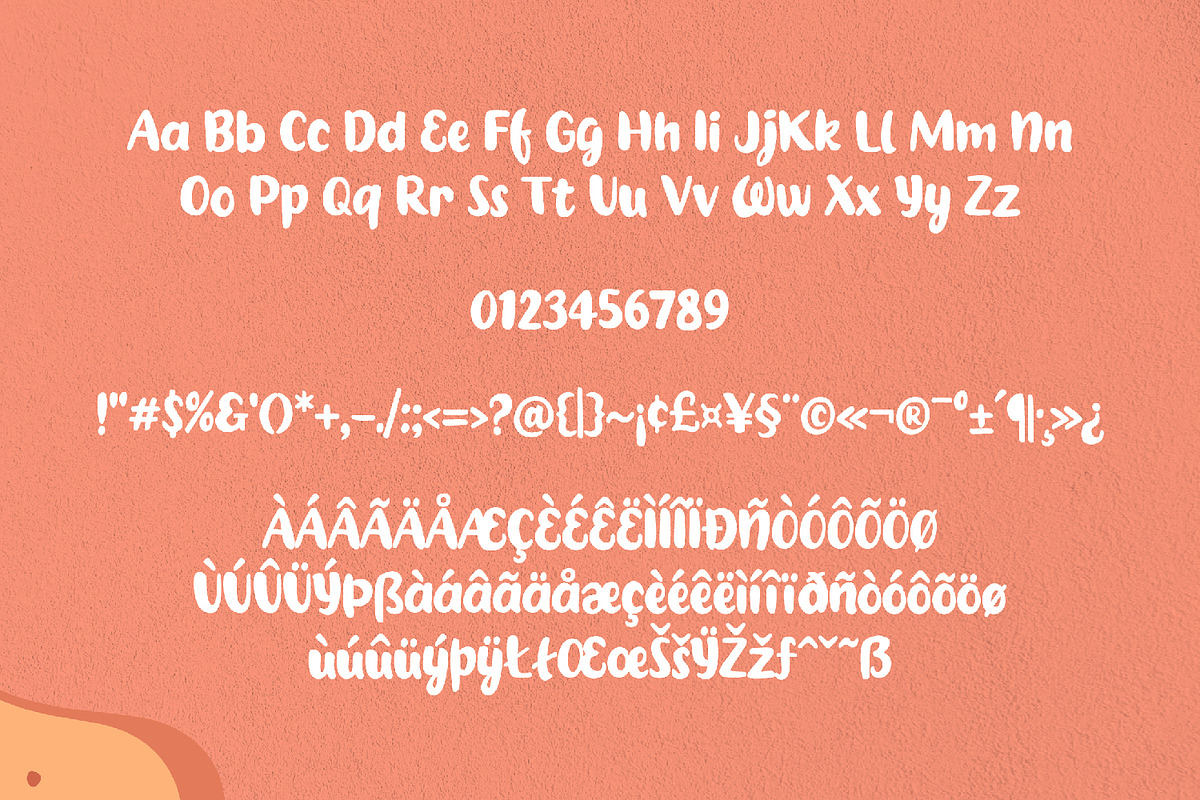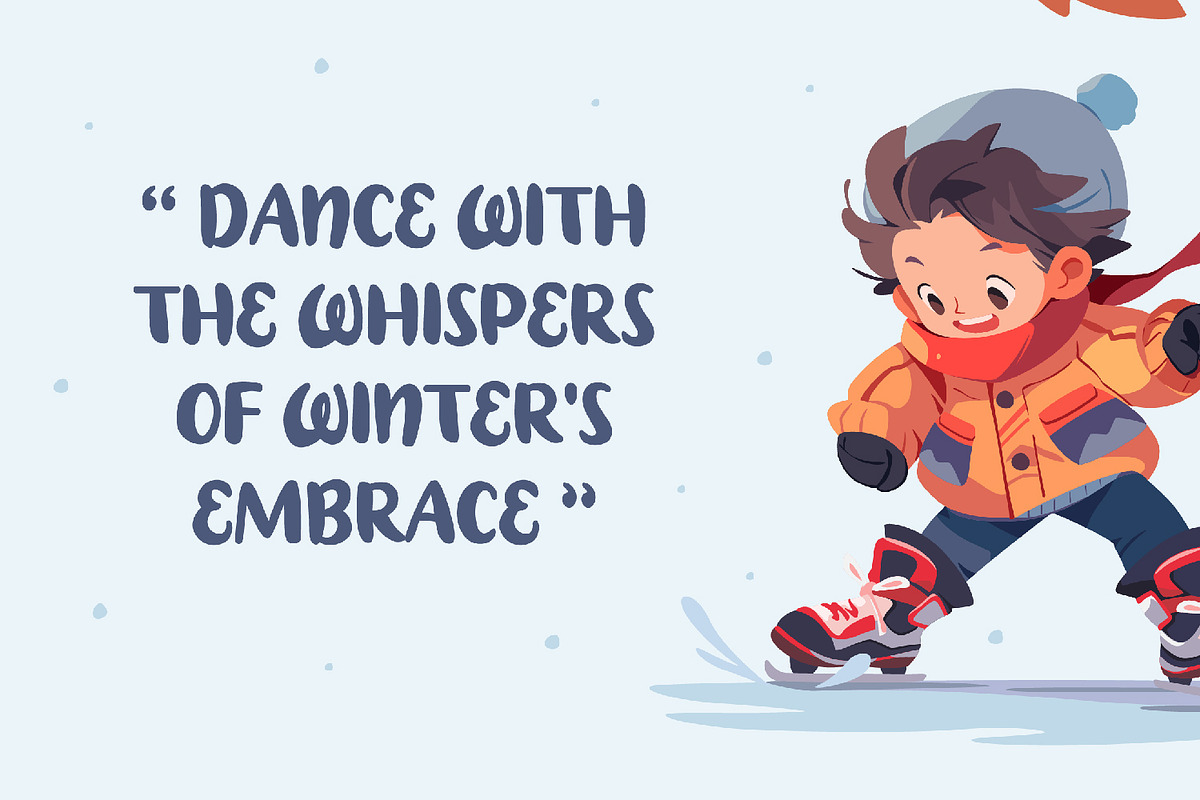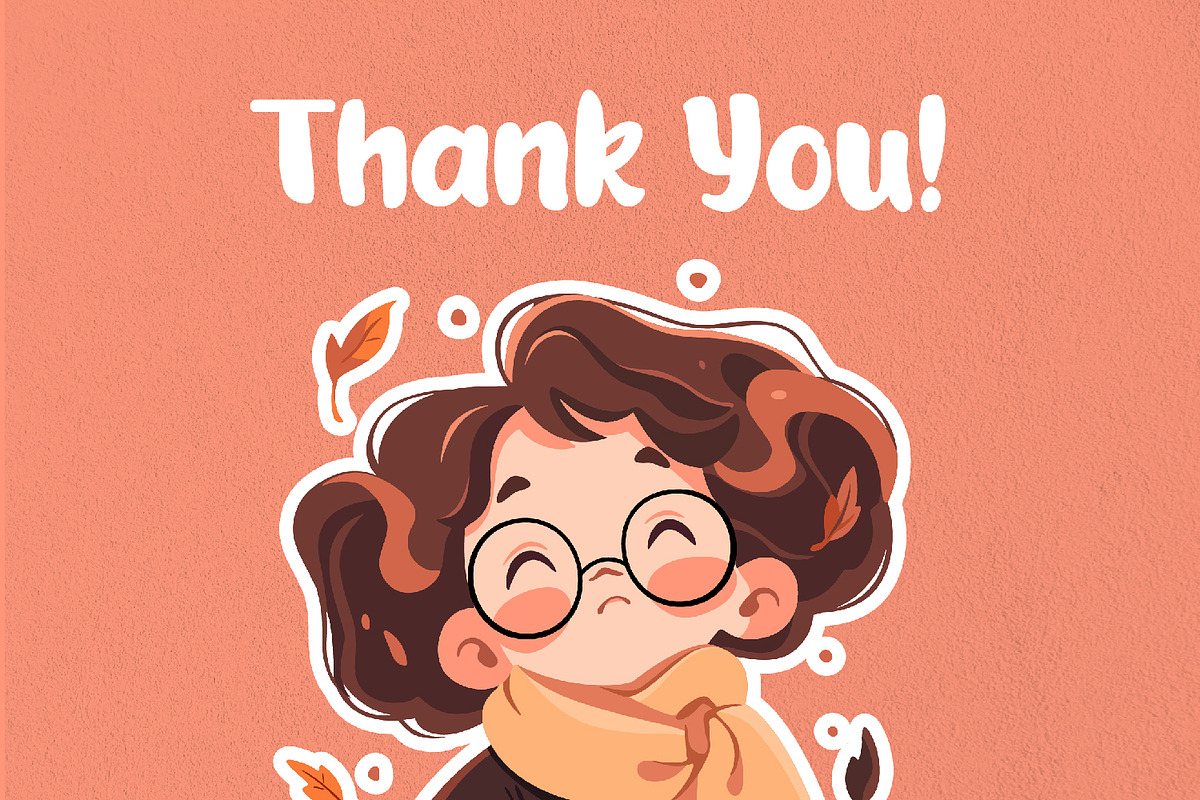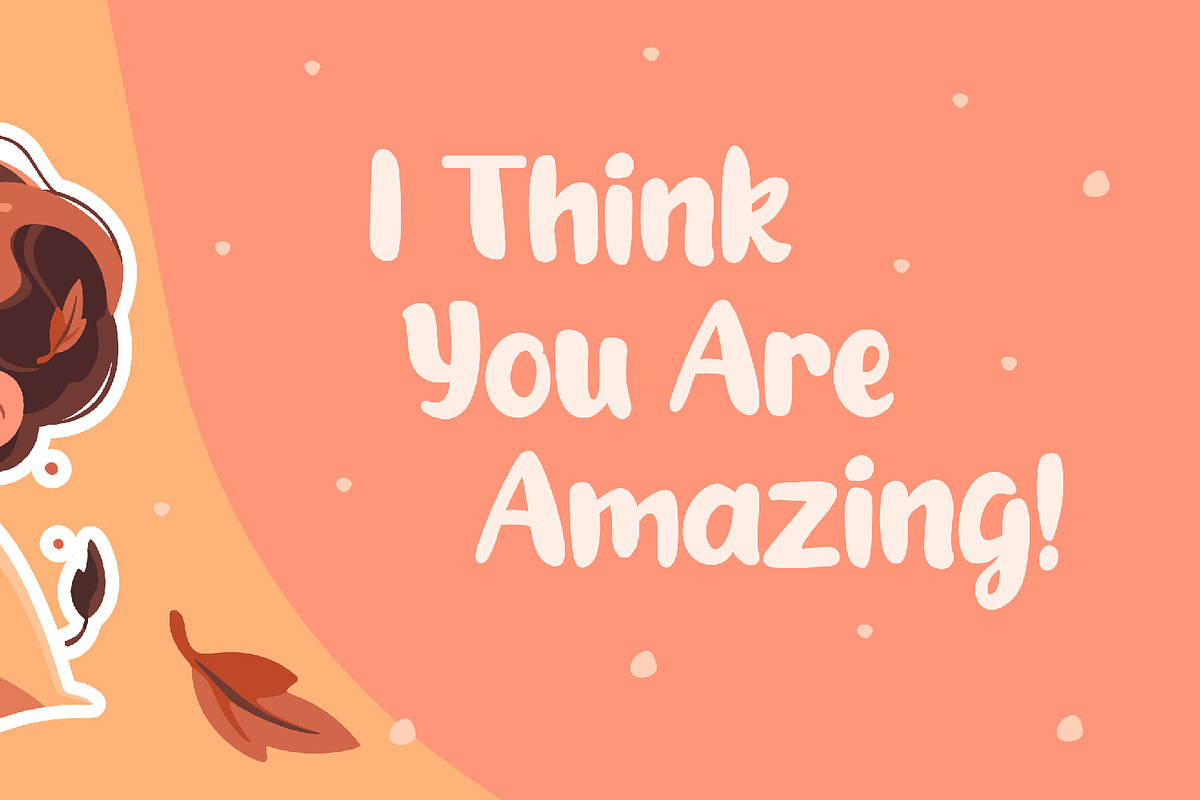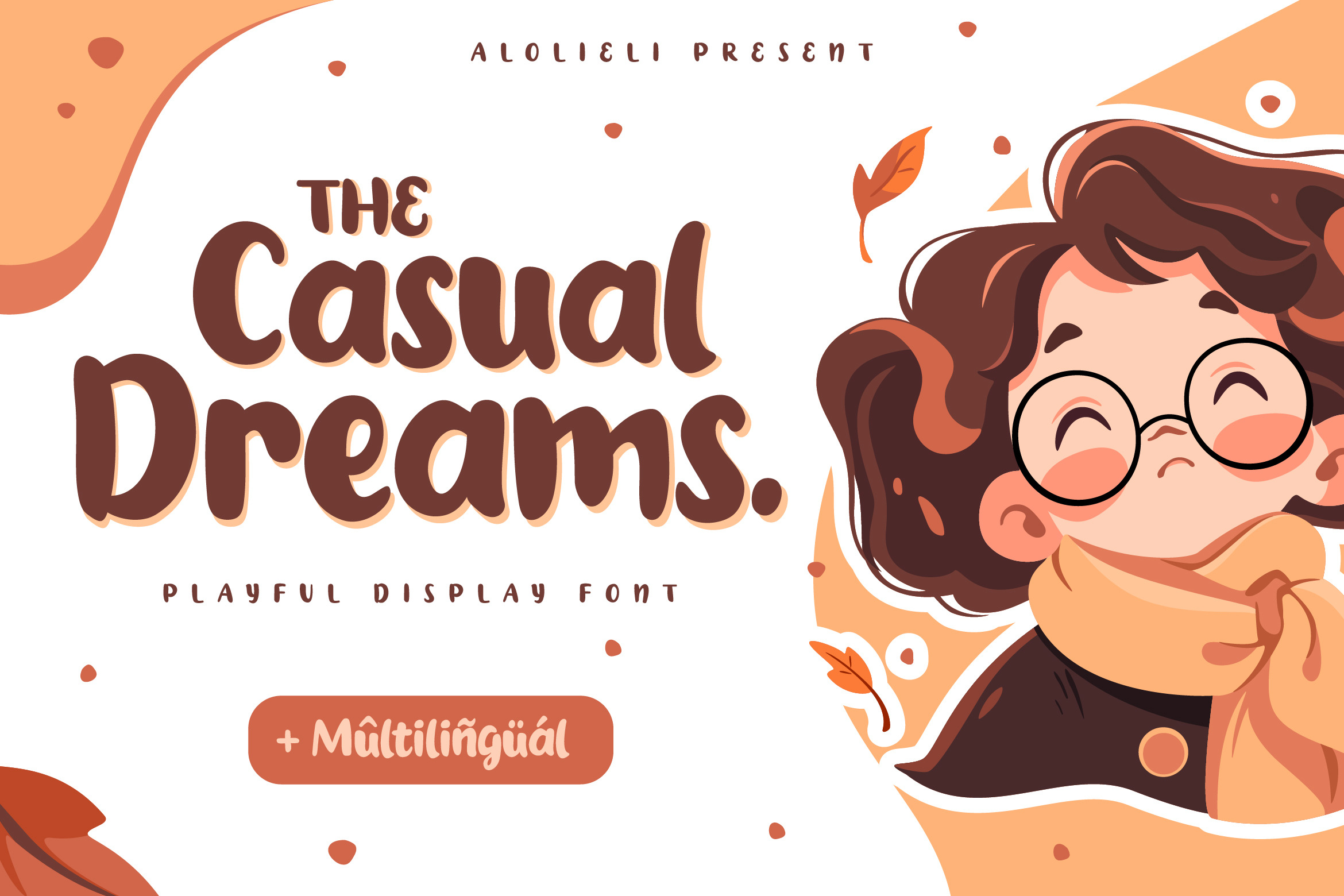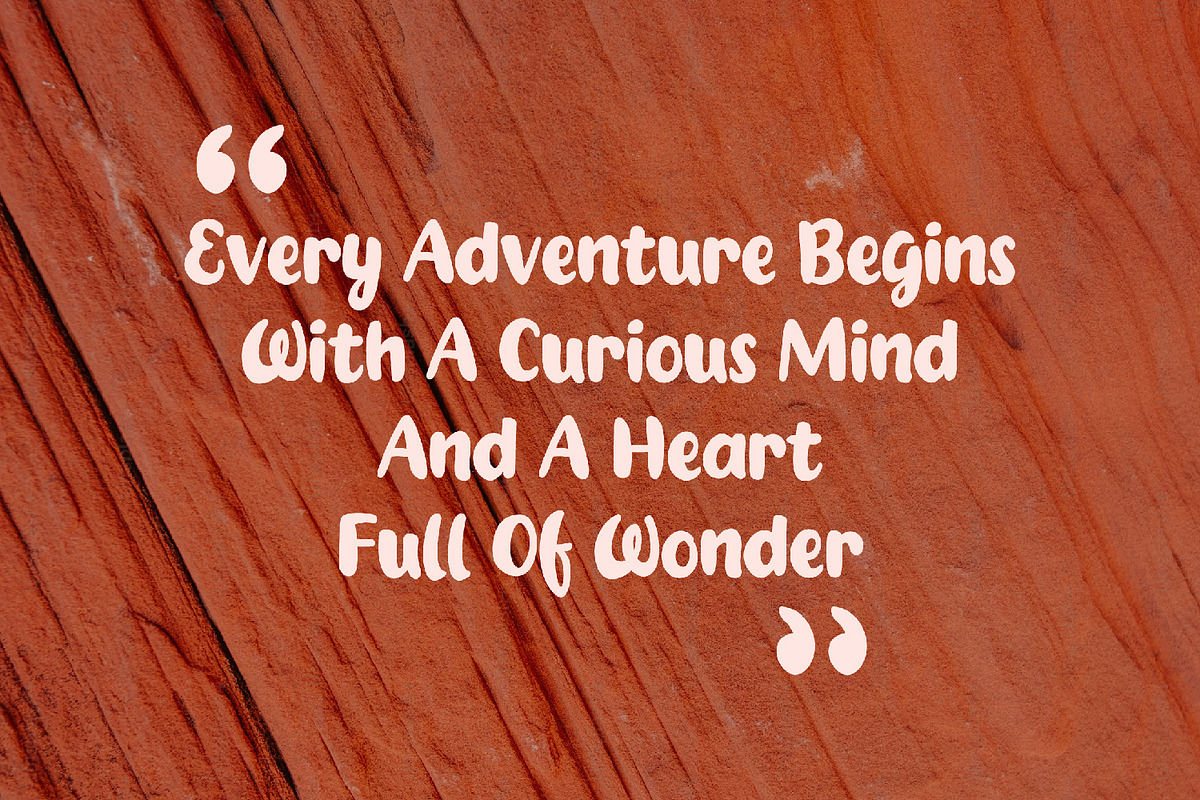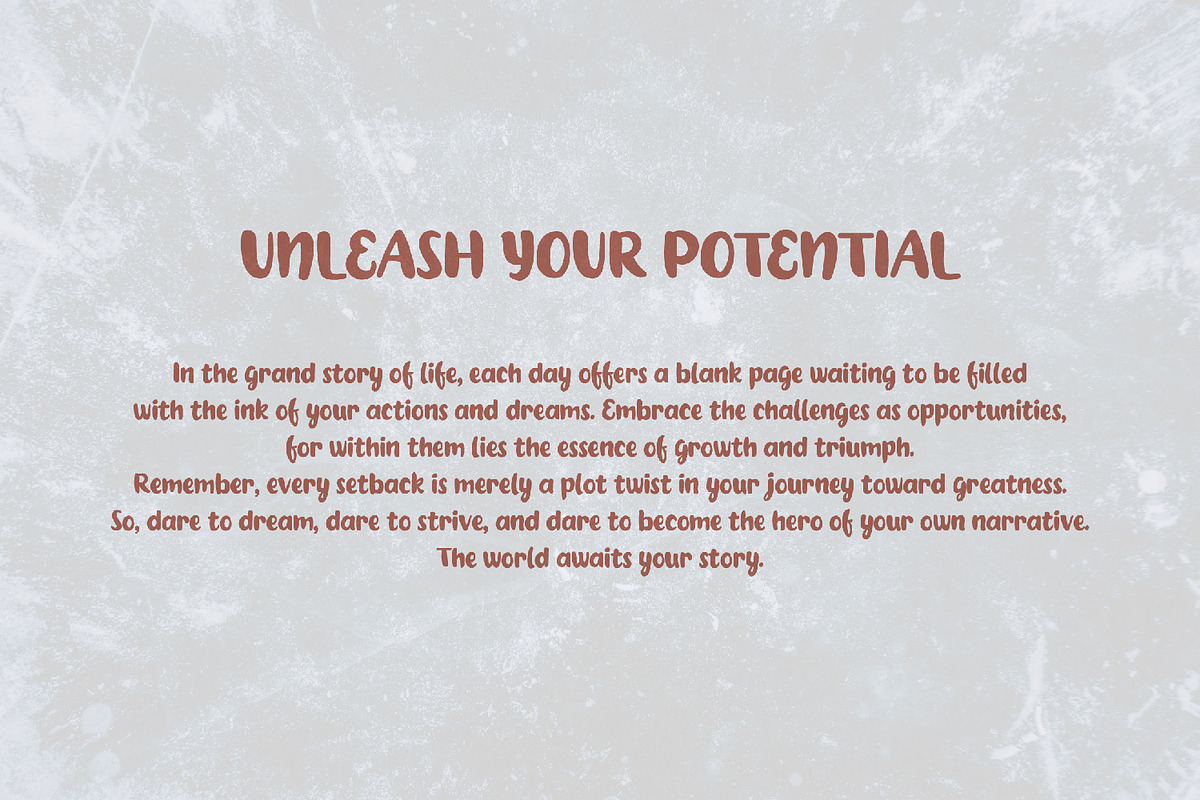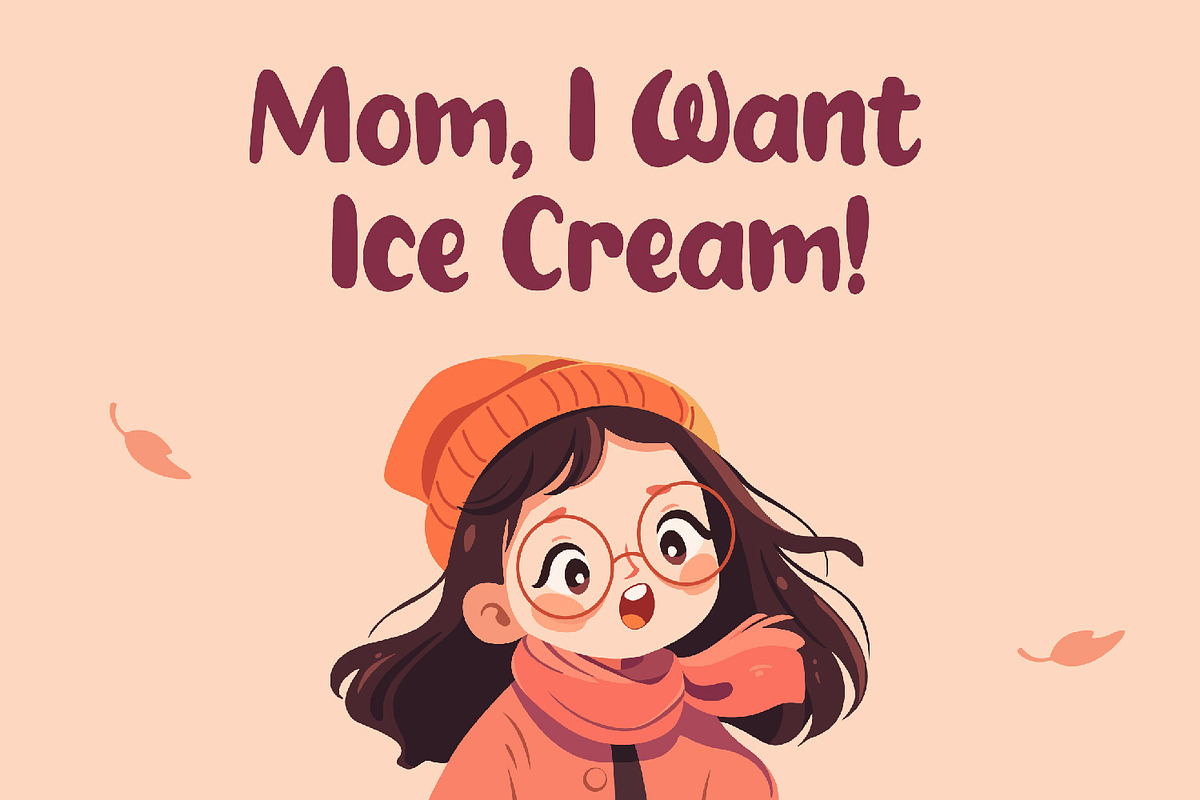
Casual Dreams - Playful Font
Introducing Casual Dreams,
a playful display font designed to bring joy to your designs. With its whimsical strokes and dynamic curves, Casual Dreams radiates a carefree charm that's perfect for a variety of projects. Whether it's children's books, educational materials, or lively invitations, this font adds a touch of fun to any design. Embrace the playful spirit of Casual Dreams and let every letter spark creativity in your projects. Plus, it's multilingual, ensuring versatility across languages for a global audience.
Get ready to create delightful experiences for the young and young at heart with Casual Dreams!